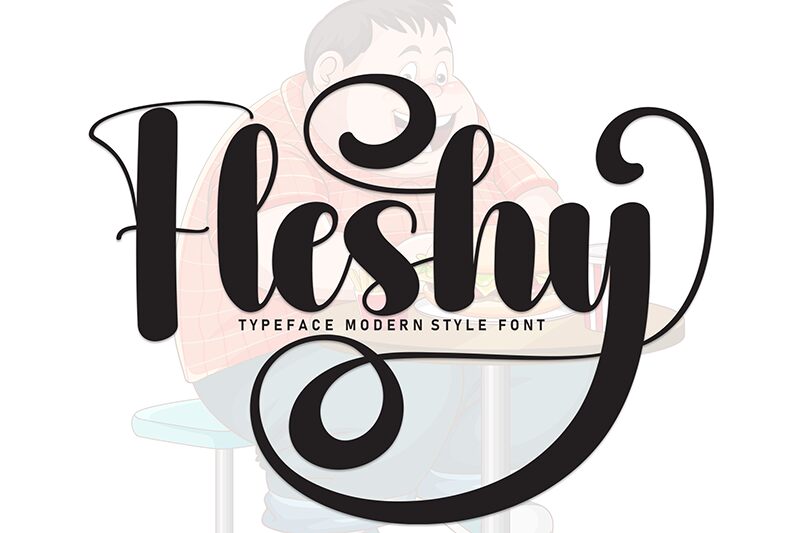
Fleshy
Fleshy font by Andi Moz is a striking brush font known for its expressive and fluid design. Its decorative, contemporary appeal shines through an elegant script-like style, giving it an eye-catching presence sure to stand out.